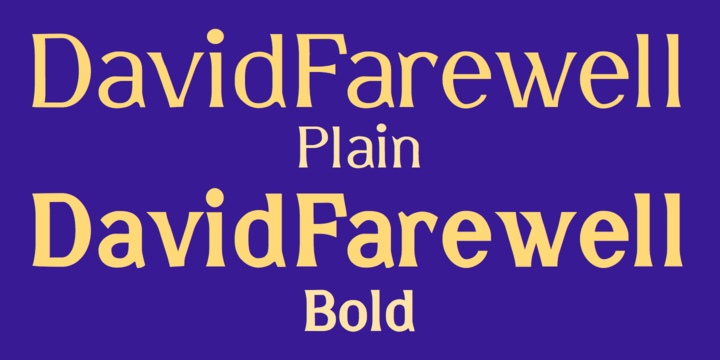
David Farewell Font
David Farewell Font is perfect for memorial service programs, farewell greeting cards, retirement celebration materials, military tribute publications, veteran honor ceremonies, nostalgic personal correspondence, commemoration event signage, and emotional farewell communications where dignity and heartfelt remembrance are paramount.
What makes David Farewell Font so exciting is its profound ability to convey deep emotion and respectful tribute through thoughtfully crafted letterforms that honor meaningful departures while maintaining compassionate readability. The dignified character design reflects the solemnity and appreciation associated with life transitions and heartfelt goodbyes.
The David Farewell Font family includes light, regular, medium, and bold weights, with commemorative variants and tribute-inspired ornamental elements that provide comprehensive tools for creating respectful farewell branding and memorial design systems.
The font's graceful character proportions and gentle curves create immediate associations with honor, gratitude, and peaceful transitions. Each letterform has been designed to convey the depth of appreciation and respectful recognition that accompanies significant life departures and commemorative occasions.
David Farewell Font excels in creating meaningful communications that provide comfort during transitional moments and honor the contributions of departing individuals. The typeface's respectful character makes it ideal for organizations and individuals creating tribute materials and farewell celebrations.
From retirement parties to military honors, this font brings appropriate dignity that resonates with audiences experiencing significant life transitions and commemorative moments. The versatile design maintains its respectful character across both traditional print applications and modern digital memorial platforms.